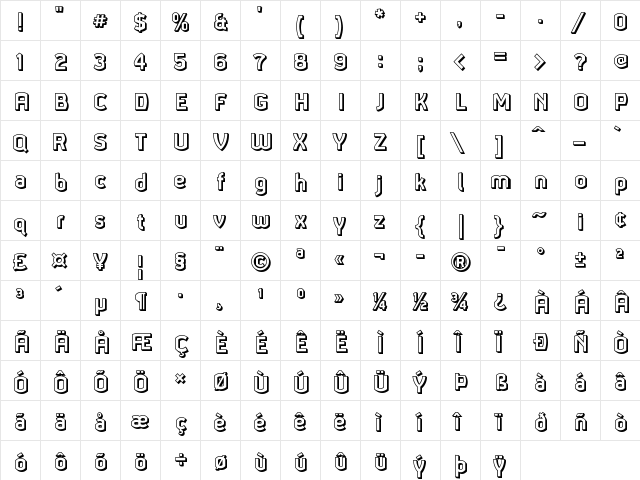
Ganymede3D Regular
| Designer | James Arboghast |
Design Context for Ganymede3D Typeface
Ganymede3D is a composed and adaptable typeface that performs quietly and consistently across a wide range of design contexts.